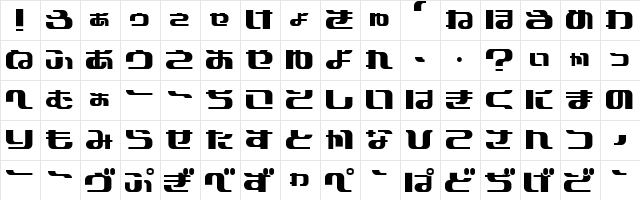
Potted Regular
Design Context for Potted Typeface
Potted takes a measured approach to typography — its balanced proportions and neutral character make it a reliable workhorse for both digital and print work.